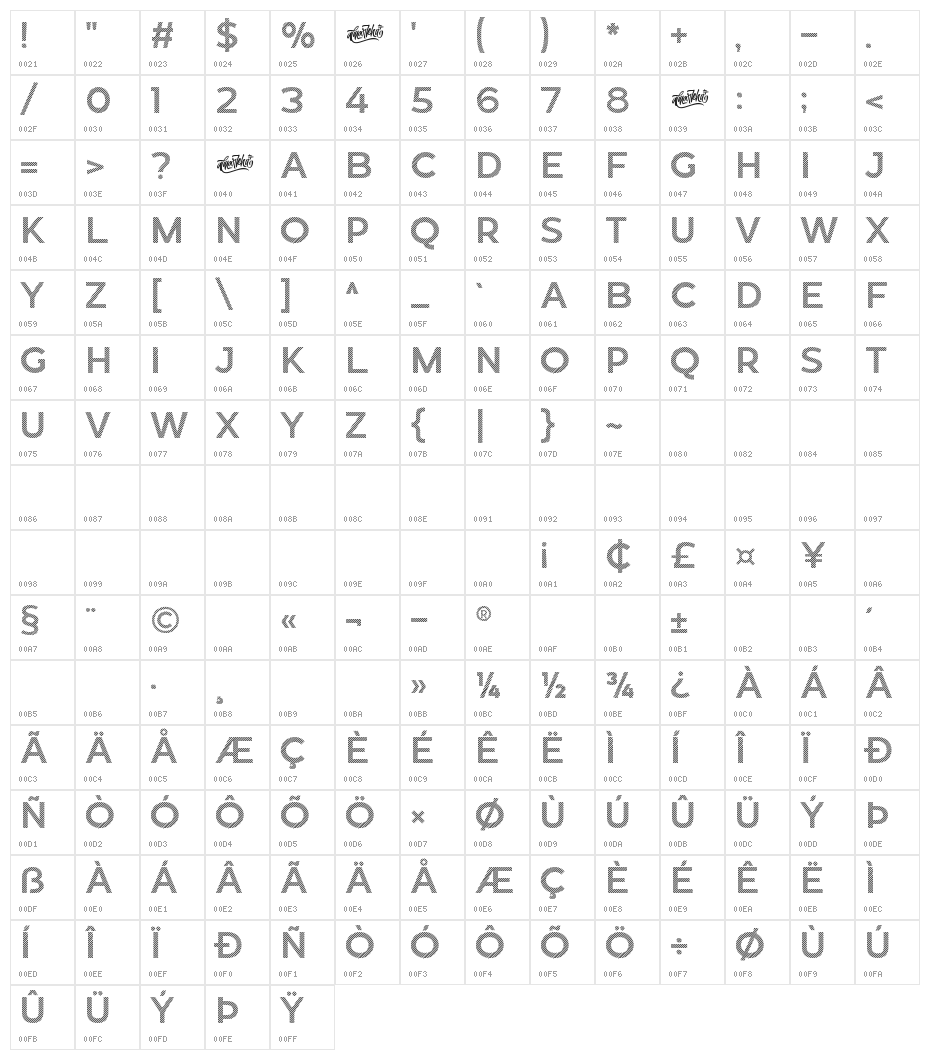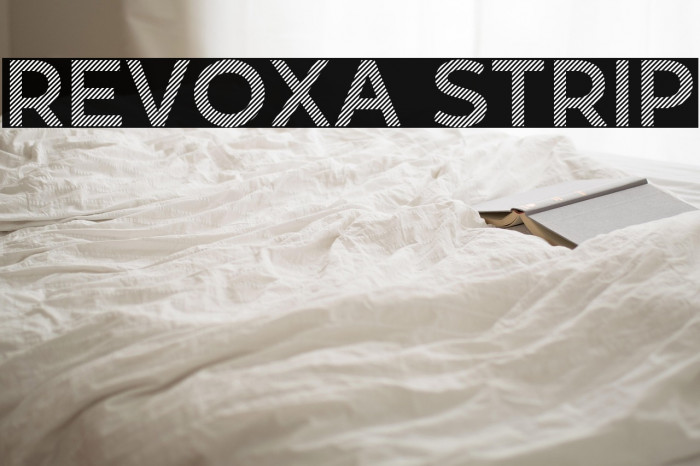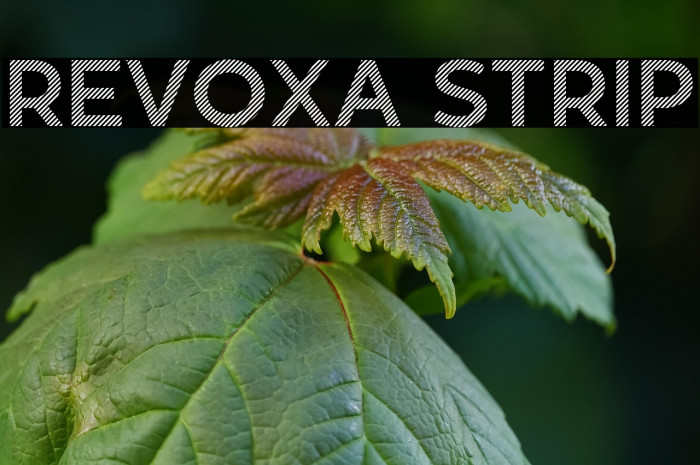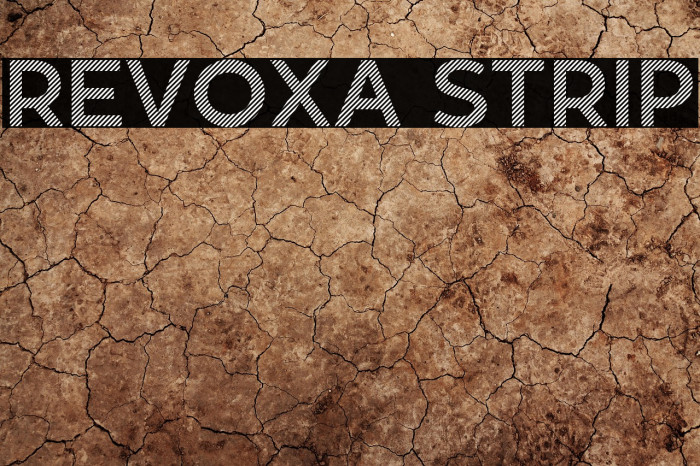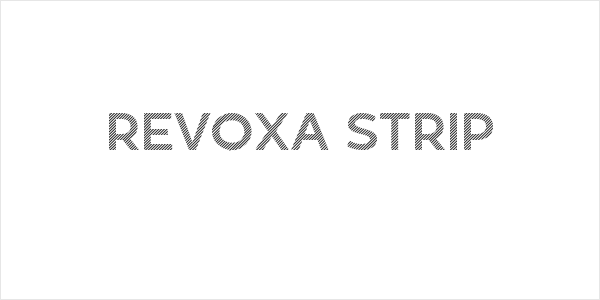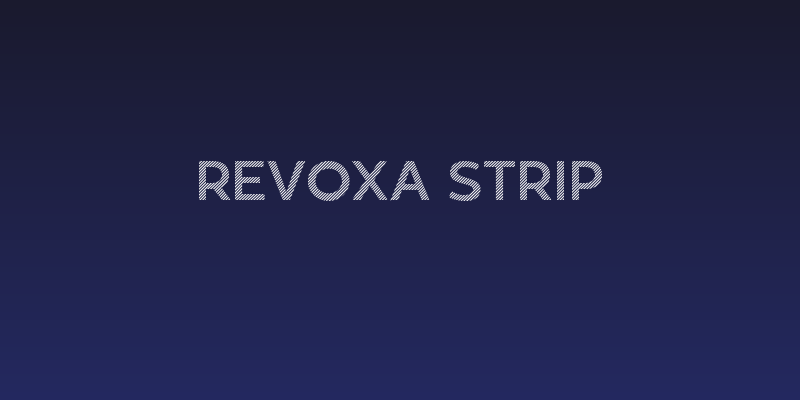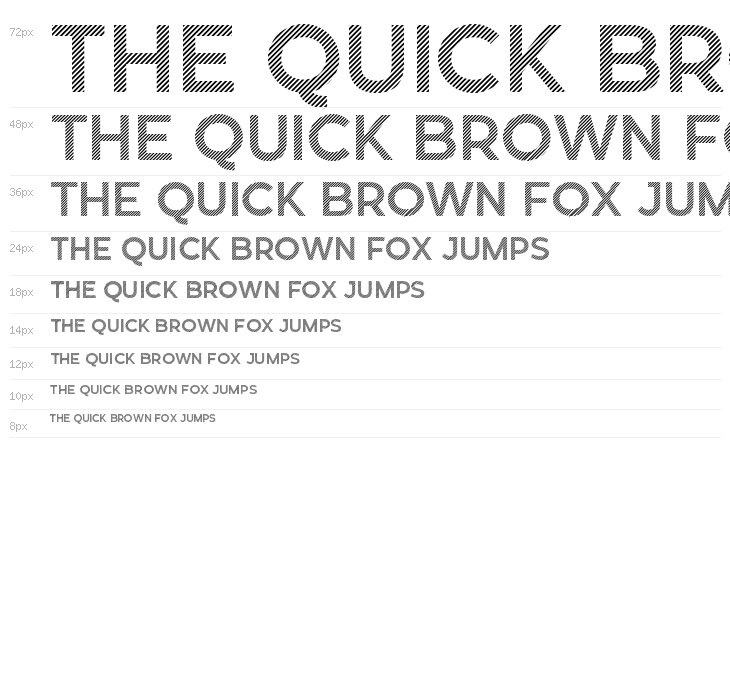
Revoxa Strip Font
Revoxa Strip Description
This font features a unique striped pattern that runs diagonally across each character, giving it a dynamic and textured appearance. The characters are bold and uppercase, with a modern sans-serif style that emphasizes clarity and readability. The consistent diagonal striping adds a sense of movement and energy, making it stand out in any design. The numbers and special characters maintain the same striped pattern, ensuring a cohesive look across all elements. This font is ideal for projects that require a bold statement and a contemporary feel.